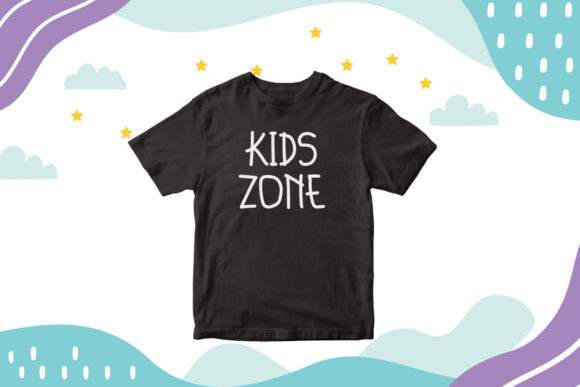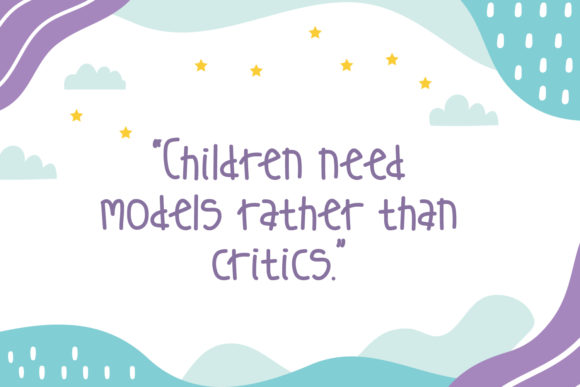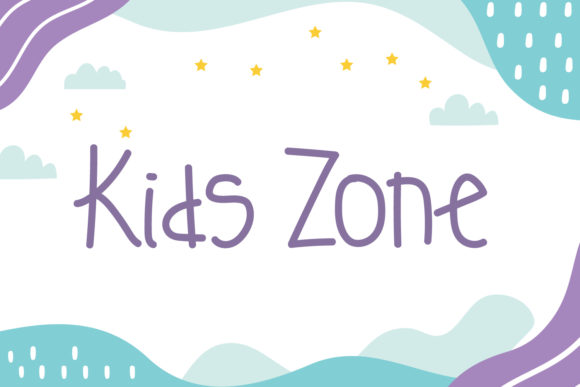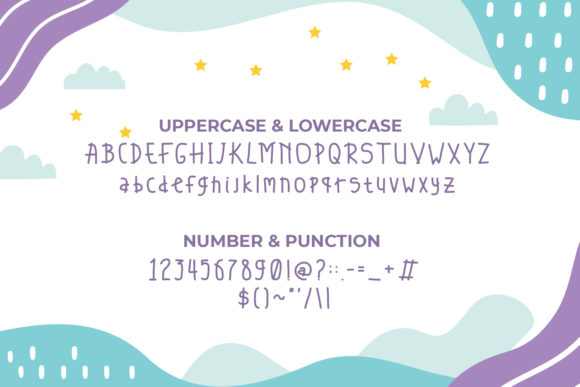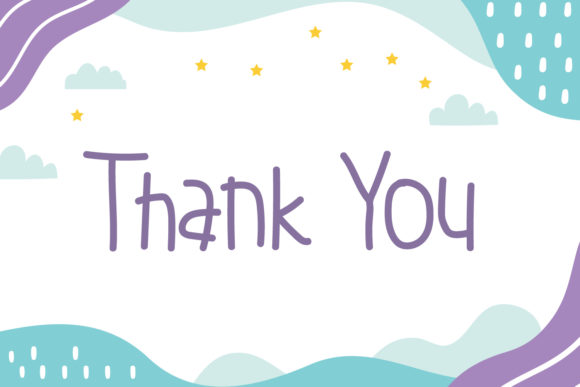
Introducing Adam Eva Font: The Perfect Blend of Fun and Quirky
Are you tired of using the same old boring fonts for your crafty projects? Look no further than the Adam Eva Font! This fun and quirky display font is sure to add a touch of personality to any design, from letterheads and titles to stationery and more.
What Makes Adam Eva Font So Special?
Adam Eva Font is an original and unique typeface that is sure to stand out from the crowd. Its playful and whimsical design makes it perfect for crafty ideas that require a bit of flair. Whether you’re a designer, crafter, or DIY enthusiast, this font is sure to inspire your creativity and add a touch of fun to your projects.
Key Features of Adam Eva Font
- Fun and Quirky Design: Adam Eva Font features a playful and whimsical design that is sure to add a touch of personality to any project.
- Display Font: This font is perfect for display purposes, making it ideal for titles, headings, and other prominent text.
- Original Look: Adam Eva Font has an original and unique look that will set your projects apart from the rest.
- Versatile: This font can be used for a wide range of crafty ideas, from letterheads and titles to stationery and more.
Adam Eva Font is a fun and quirky display font that is sure to add a touch of personality to any design. With its original look and versatile design, it’s perfect for a wide range of crafty ideas, from letterheads and titles to stationery and more. Whether you’re a designer, crafter, or DIY enthusiast, Adam Eva Font is sure to inspire your creativity and help you create unique and eye-catching projects.
- What type of font is Adam Eva Font?: Adam Eva Font is a display font.